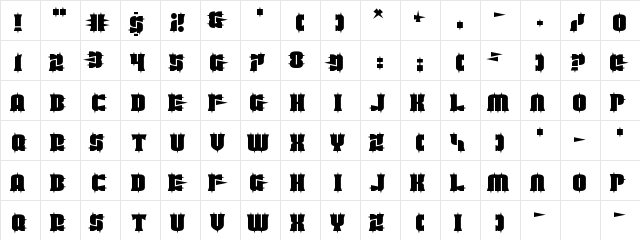
Guest Circus Paradiso Regular
Guest Circus Paradiso is a composed and adaptable typeface that performs quietly and consistently across a wide range of design contexts.